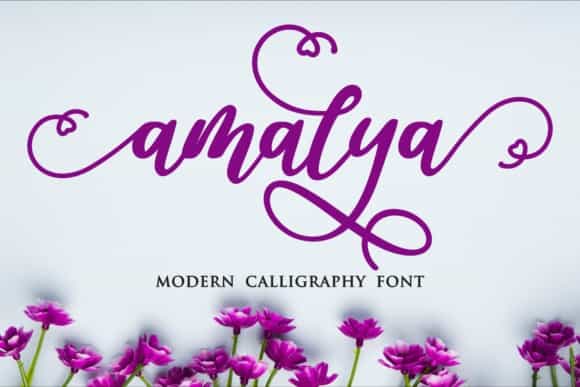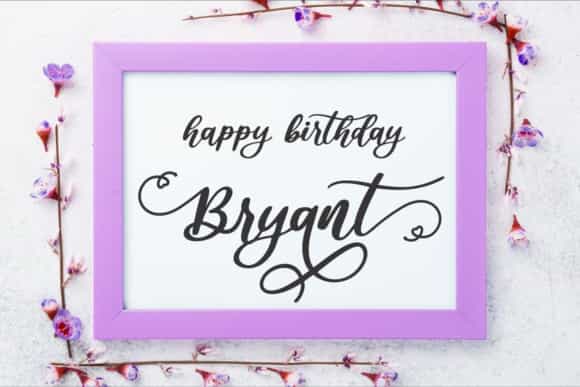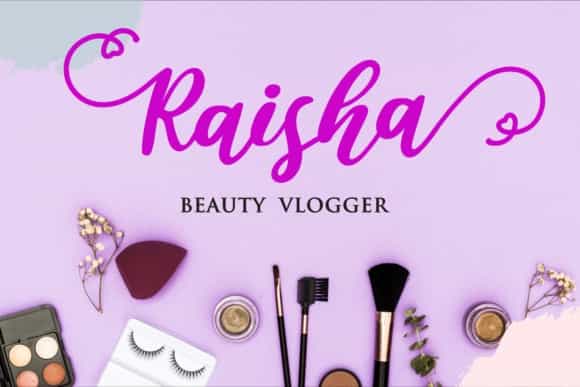
Amalya is a Lovely Calligraphy Script Font with Beautiful Style. This font will perfect for many different project, example: invitations, greeting cards, posters, name card, quotes , blog header , branding and logo are among the things that you can create using Canva.